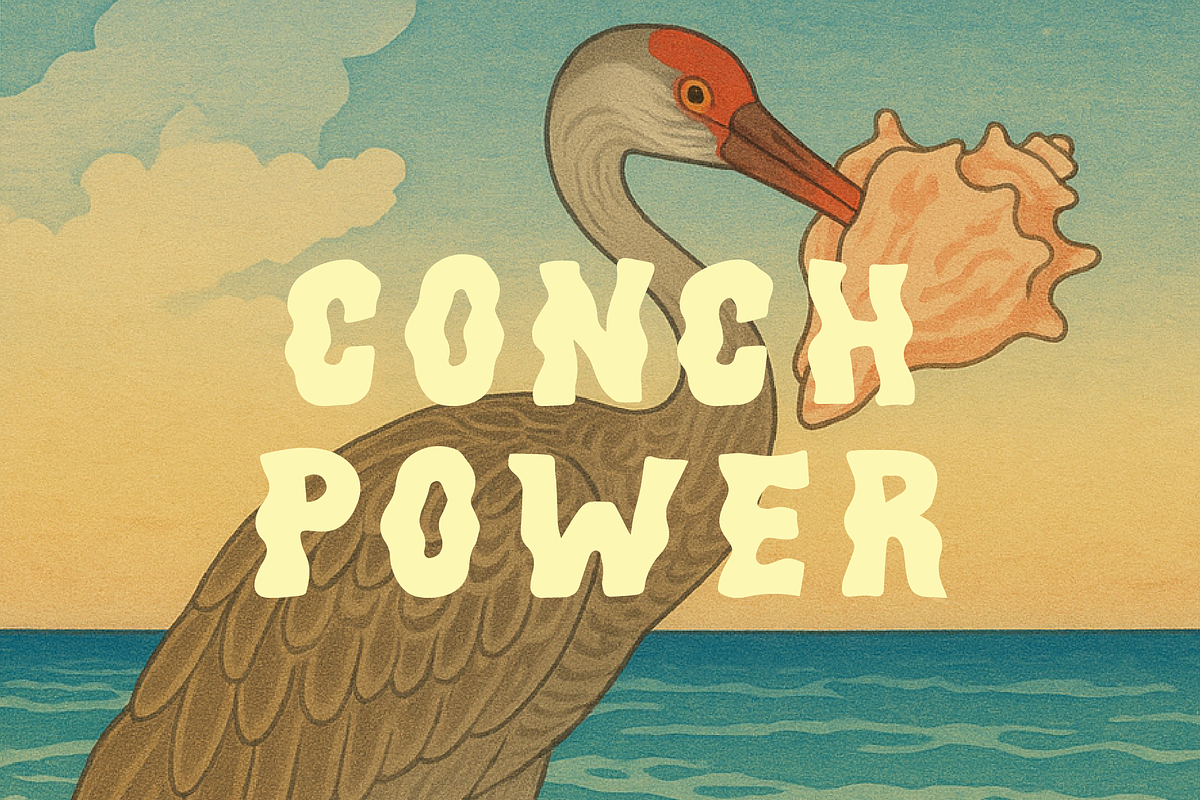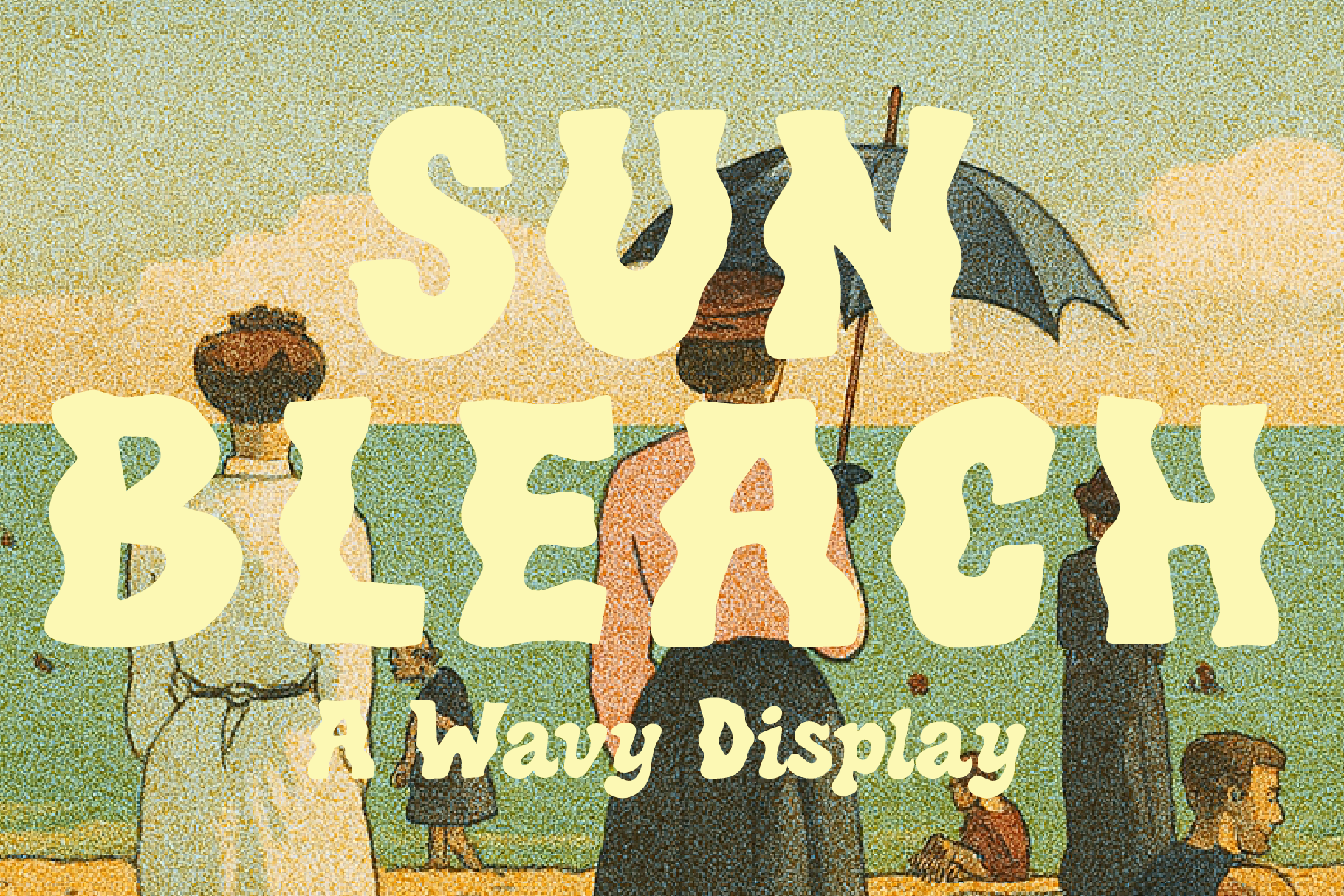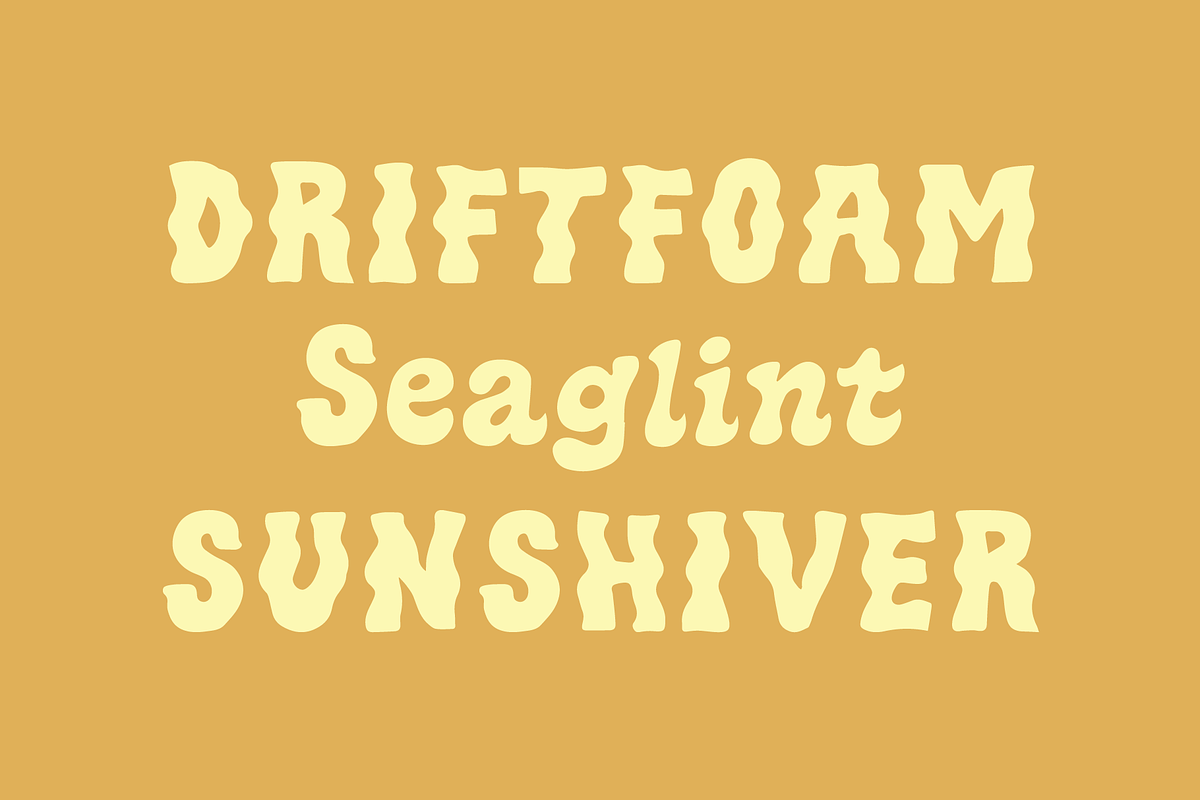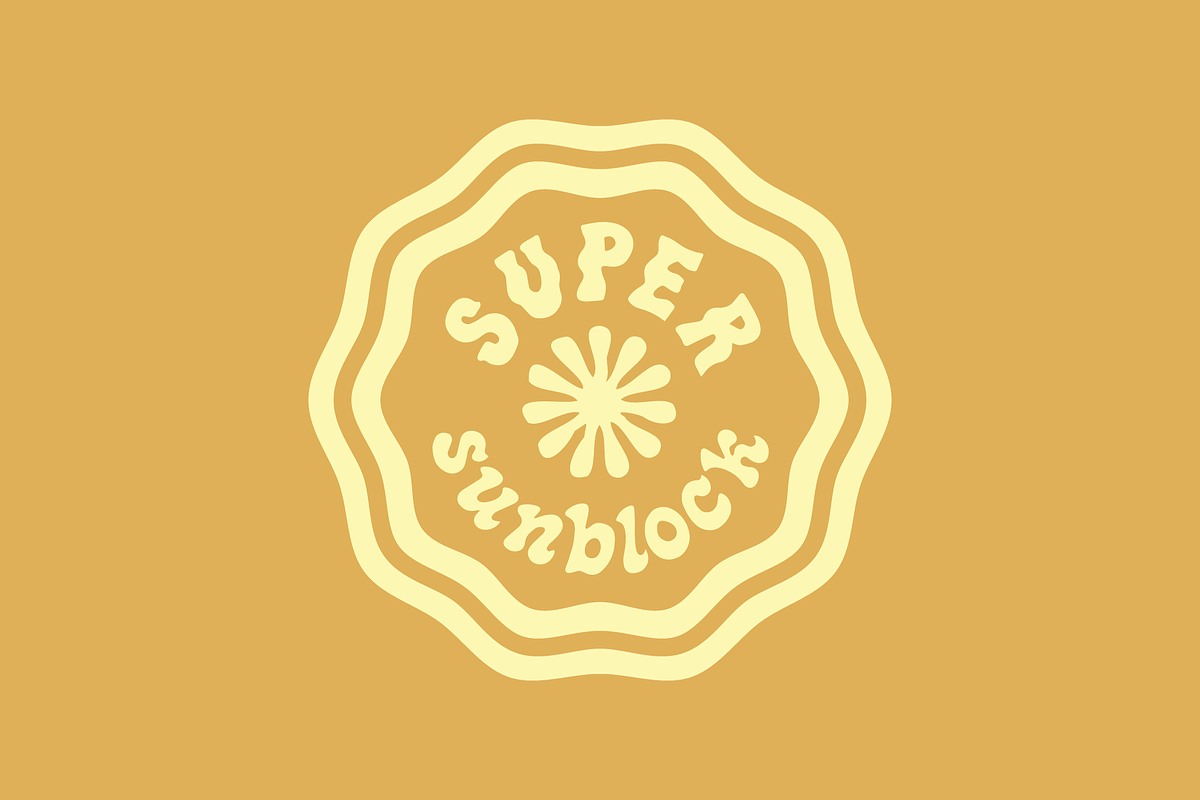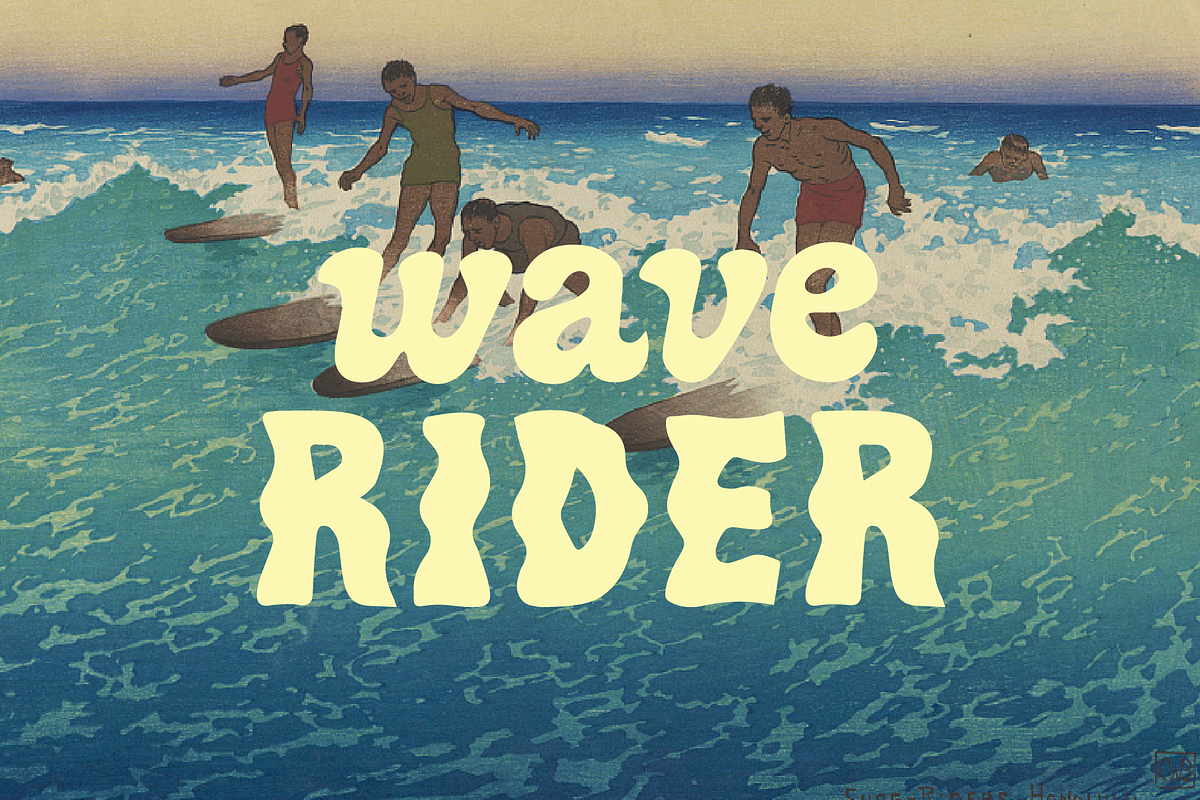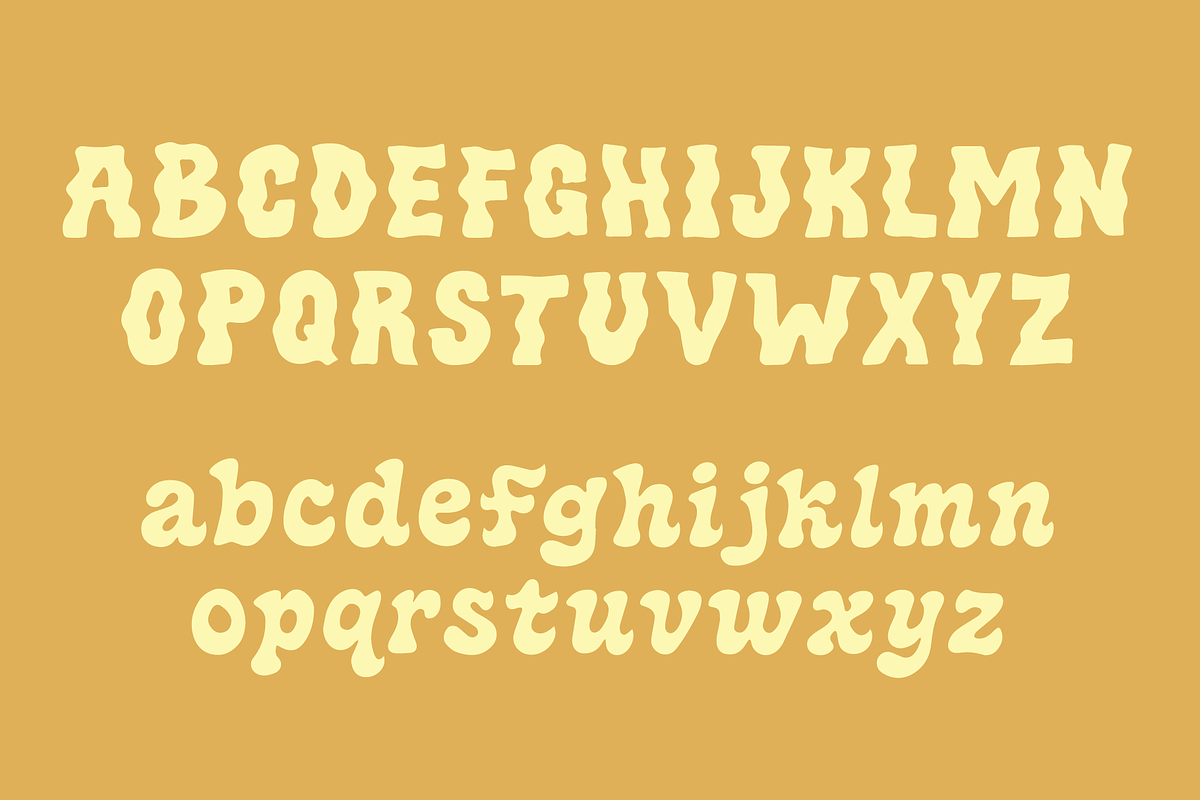
Sunbleach - a wavy display font
Meet Sunbleach - Hand-crafted with playful curves and wobbly edges, this typeface oozes personality. Inspired by retro sign painting and vintage cartoon titles, it's perfect for logos, packaging, posters, apparel, and anything that needs a dose of fun.
Whether you're branding a funky cafe, launching a streetwear drop, or designing a summer festival flyer, this font brings the charm.